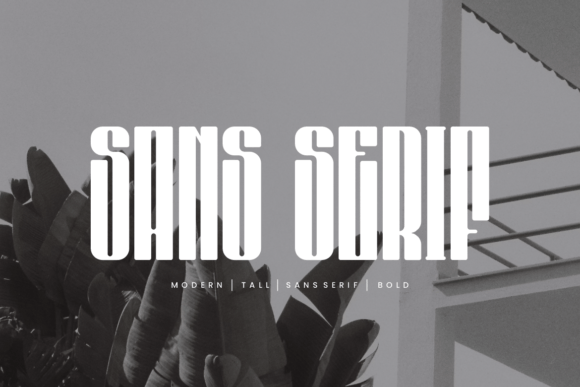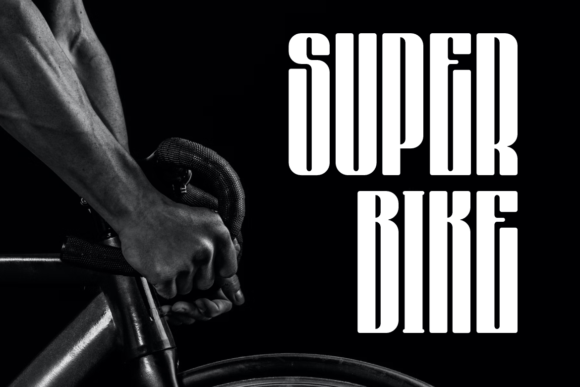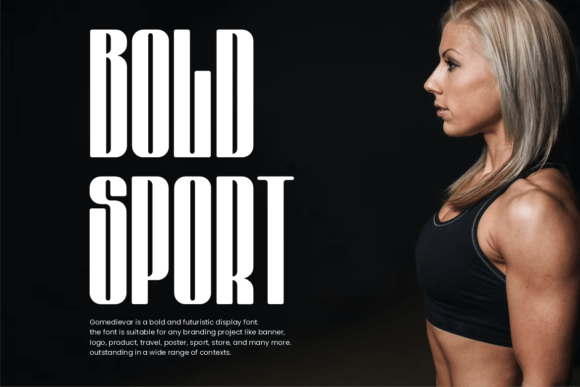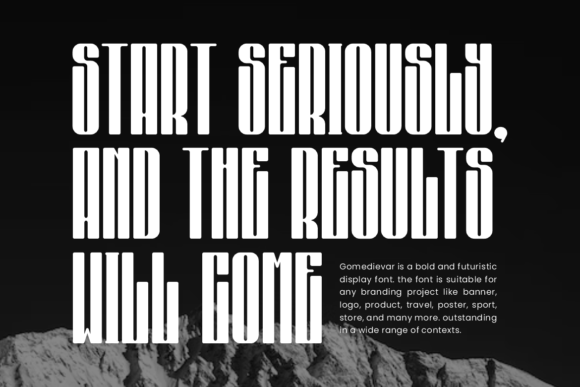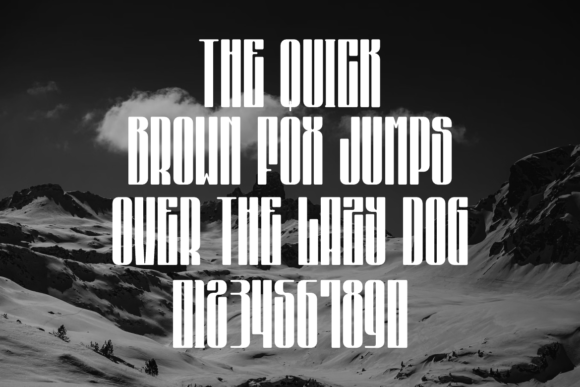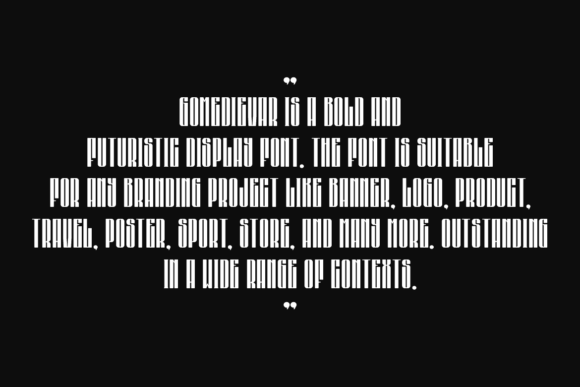
Gomedievar Font: The Ultimate Display Font for Bold and Authentic Designs
Are you tired of using the same old fonts for your branding projects? Look no further than the Gomedievar Font, a bold and authentic display font that’s perfect for making a statement. In this article, we’ll dive into the features and benefits of the Gomedievar Font, and explore how it can elevate your designs to the next level.
What is Gomedievar Font?
Gomedievar Font is a carefully crafted display font designed to make an impact. With its bold and authentic style, it’s suitable for a wide range of branding projects, from logos and sports teams to advertising and marketing materials. The font’s unique character and versatility make it an excellent choice for designers and crafters looking to add a touch of personality to their work.
Key Features of Gomedievar Font
- Bold and Authentic Style: Gomedievar Font boasts a bold and authentic style that’s sure to grab attention.
- Versatile: The font is suitable for a wide range of contexts, from logos and branding to sports and advertising.
- Easy to Read: Despite its bold style, Gomedievar Font is easy to read, making it perfect for headlines and titles.
Benefits of Using Gomedievar Font
So why choose Gomedievar Font for your next project? Here are just a few benefits of using this amazing display font:
- Stand Out from the Crowd: With its unique and bold style, Gomedievar Font is sure to make your design stand out from the competition.
- Save Time: The font’s versatility and ease of use save you time and effort in the design process.
- Professional Results: Gomedievar Font is designed to deliver professional results, every time.
Who Can Benefit from Gomedievar Font?
Gomedievar Font is perfect for a variety of designers and crafters, including:
- Graphic Designers: Add a touch of personality to your branding projects and logos.
- Advertising Agencies: Create eye-catching headlines and titles for your clients.
- Sports Teams: Develop a bold and authentic brand identity with Gomedievar Font.
- Crafters and Makers: Use Gomedievar Font to add a professional touch to your handmade products and packaging.
- Experiment with Sizes: Gomedievar Font looks great in a variety of sizes, from small headlines to large display text.
- Play with Colors: The font’s bold style looks great in a range of colors, from bright and bold to subtle and muted.
- Pair with Other Fonts: Gomedievar Font pairs well with a variety of other fonts, making it easy to create a unique and cohesive design.
In conclusion, Gomedievar Font is a bold and authentic display font that’s perfect for designers and crafters looking to add a touch of personality to their work. With its versatile style, ease of use, and professional results, Gomedievar Font is an excellent choice for a wide range of branding projects. Download Gomedievar Font today and take your designs to the next level!